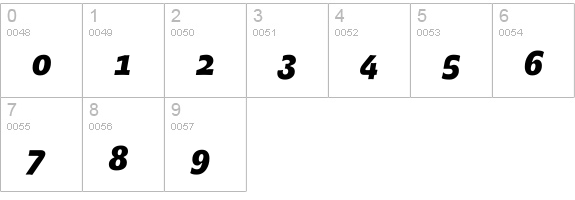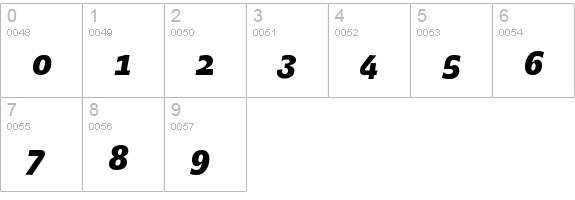
SpotkaBlack Italic Font Details
SpotkaBlack Italic is a distinctive, italic variant in the SpotkaBlack typeface family \xE2\x80\x94 well suited to design and typography projects.
SpotkaBlack Italic is a sophisticated and elegant font that exudes a sense of modernity and style. Its sleek lines and fluid curves make it perfect for a wide range of design projects, from branding to editorial design. The italicized style adds a touch of flair and sophistication, making your text stand out with a touch of elegance. Best of all, SpotkaBlack Italic is available for free download at FontsMarket.com. This means you can easily access this stunning font and incorporate it into your projects without any cost. Don't miss out on the opportunity to enhance your designs with the timeless beauty of SpotkaBlack Italic. Download it today and elevate your creative work to new heights.